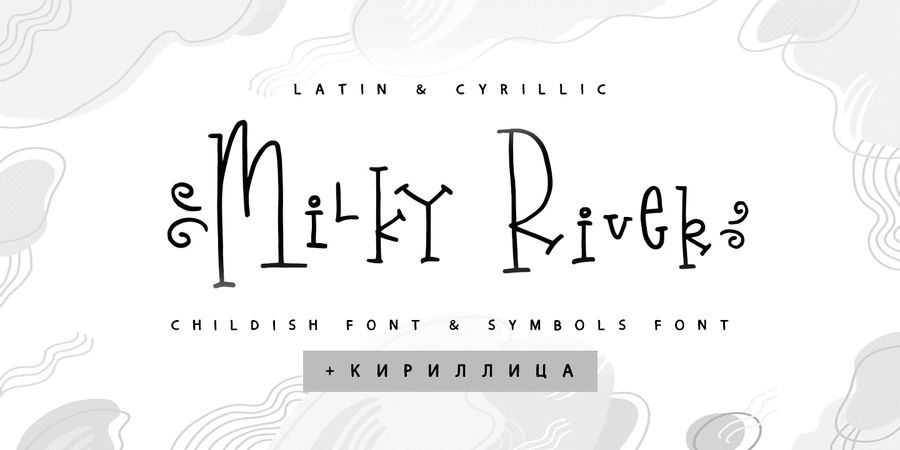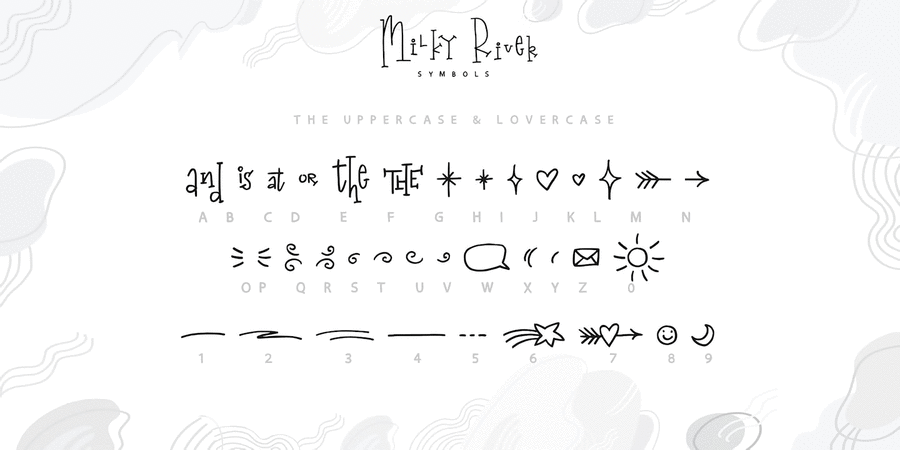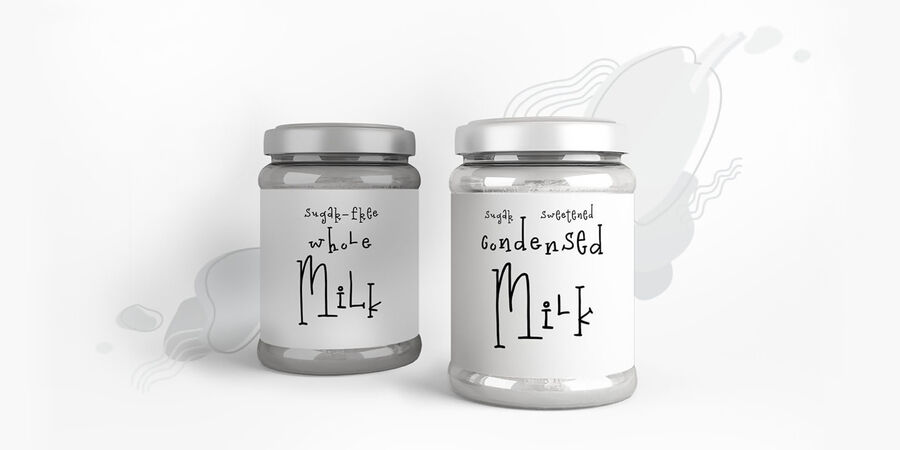
About Milky River Cyrillic is a playful childish font contains the uppercase and main & alternative lowercase letters. And also the full set of double letters a large range of numerals and punctuation. The Milky River font will be perfect for use in all your fun design projects be it logos, labels, packaging design, blog headlines. Also, it will look great on mugs, cards, kids books headlines or other typographic projects.
The Milky River symbols is an additional font with 36 hand-drawn doodles, catchwords, arrows, and swashes and can help to make your design more original. Combine and arrange swashes and illustrations to create your own designs and make borders, frames, dividers, logos and more (just use a-z and 0-9 keys in the included Milky River symbols font). A different symbol is assigned to ever uppercase or lowercase standard character so you do not need graphics software just simply type the letter you need.
Support for 32 languages: Latin glyphs for Afrikaans, Albanian, Basque, Bosnian, Catalan, Danish, Dutch, English, Estonian, Faroese, Filipino, Finnish, French, Galician, Indonesian, Irish, Italian, Malay, Norwegian Bokmål, Portuguese, Slovenian, Spanish, Swahili, Swedish, Turkish, Welsh, Zulu.
And Cyrillic glyphs support for Russian, Belorussian, Bulgarian, Ukrainian and Kazakh languages.
The typeface was designed by Iryna Dvilyuk in 2021.